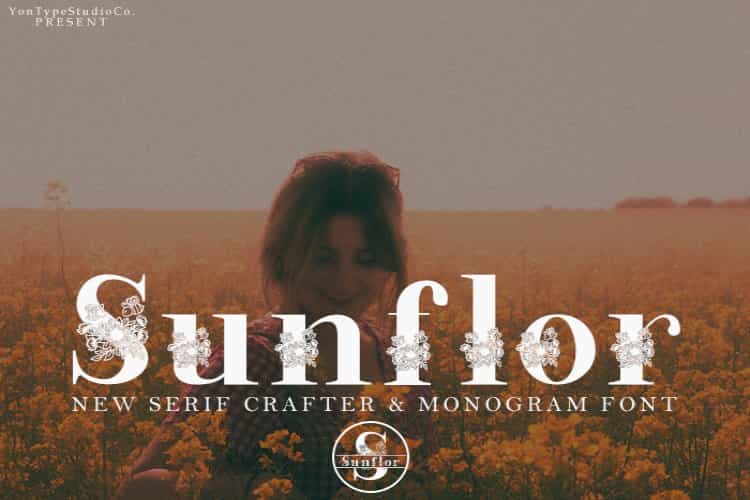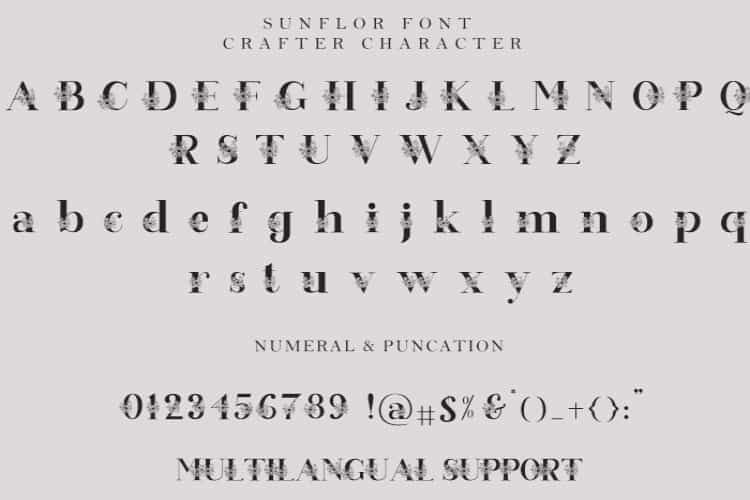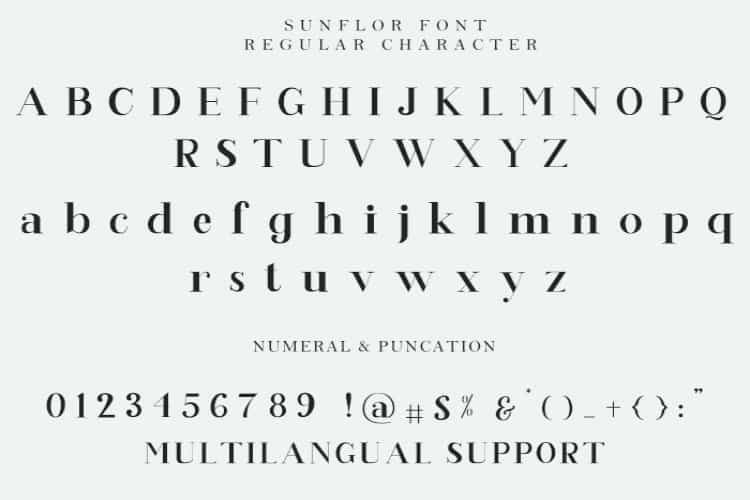
Sunflor is a minimalist and clean serif font with a clean and minimalist design. It is a great font to match to a huge array of designs, so you can incorporate it into your ideas for creative inspiration and observe how they stand out!